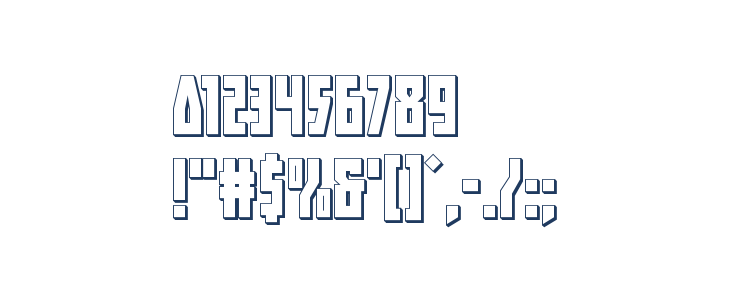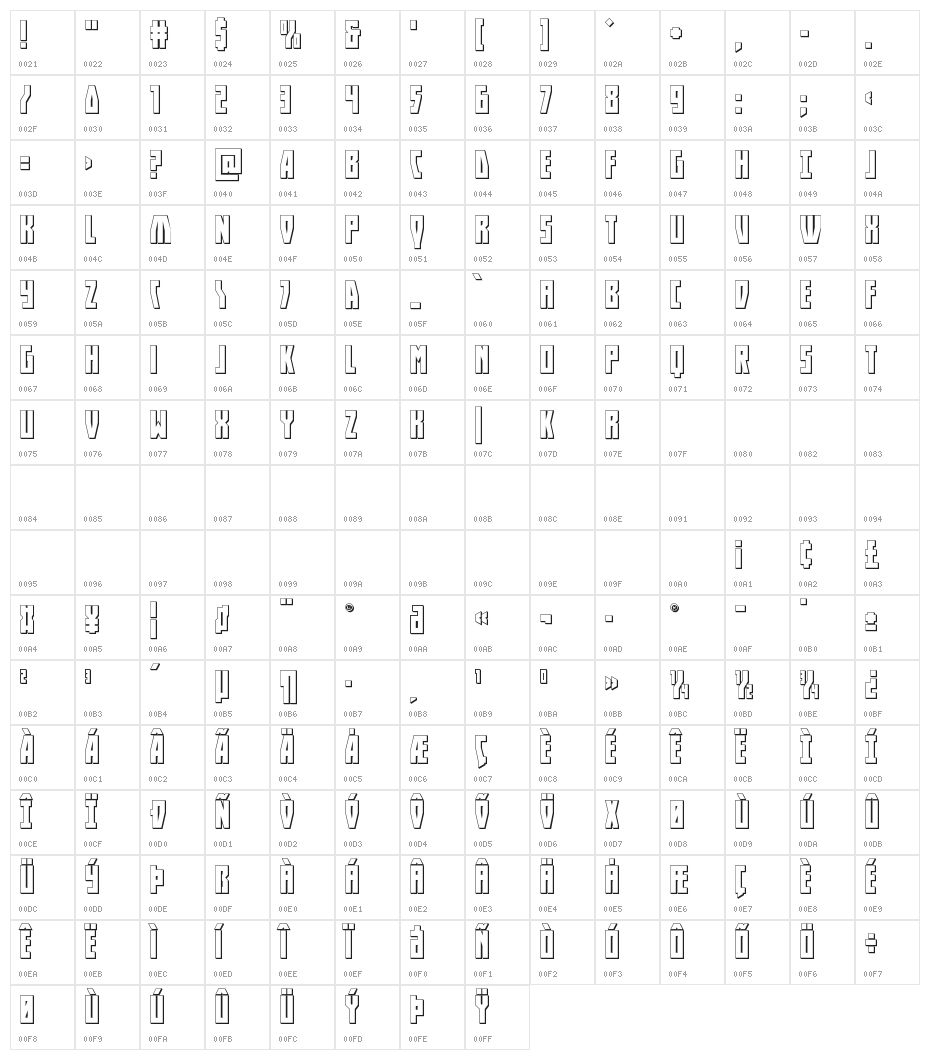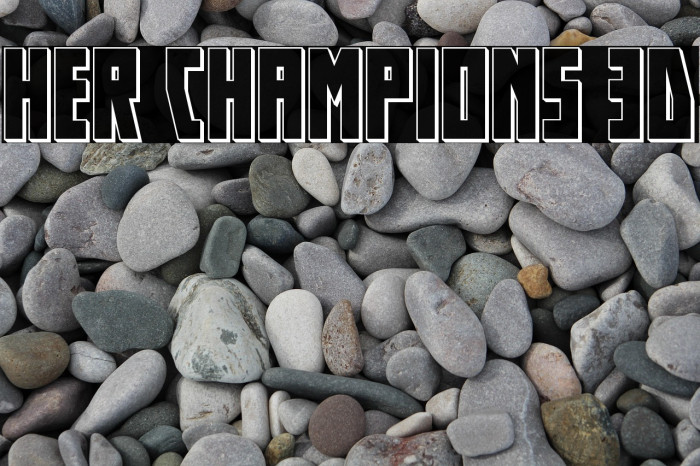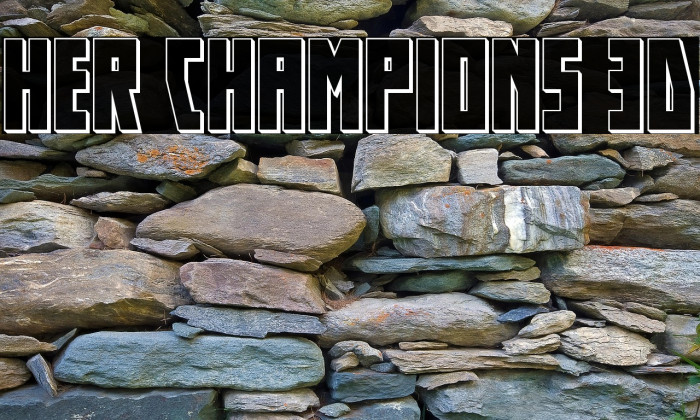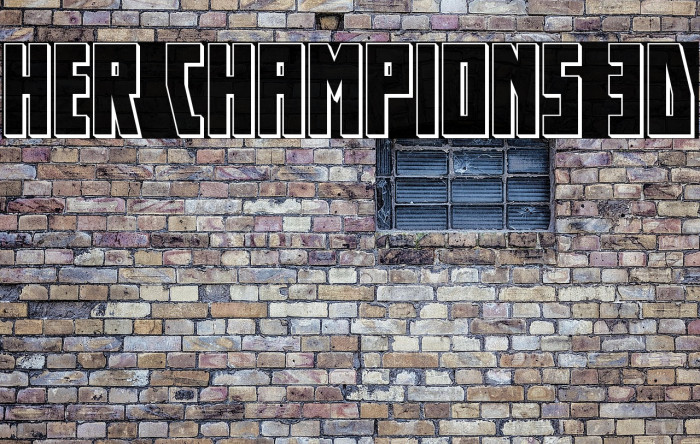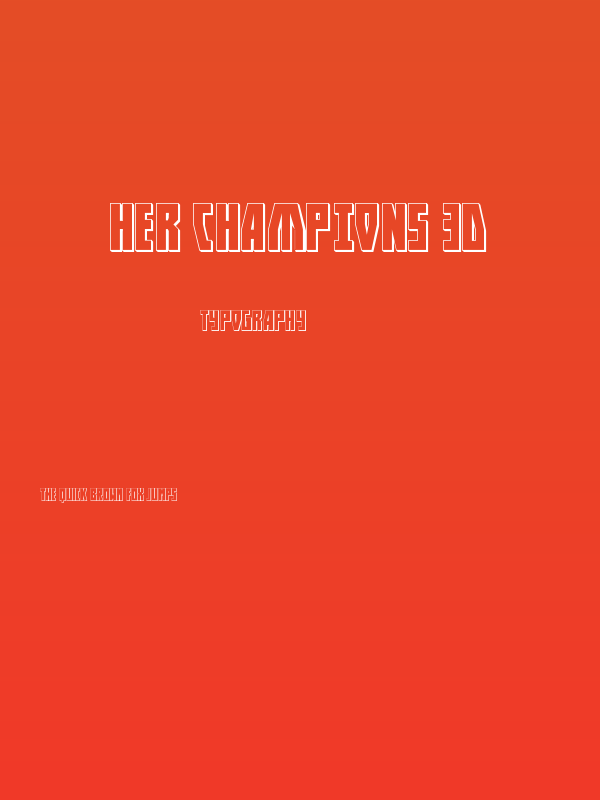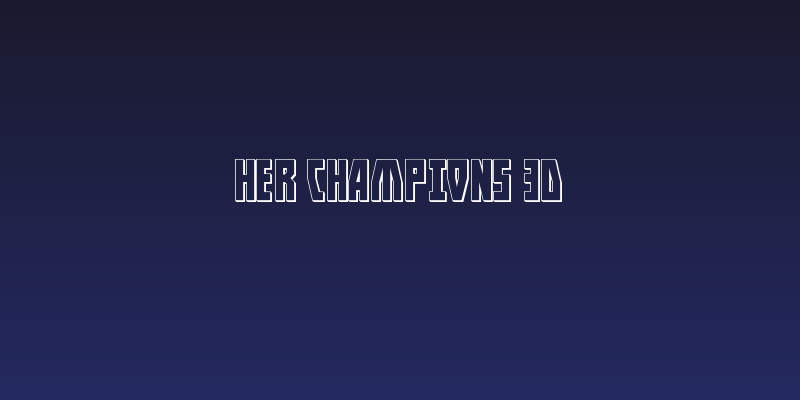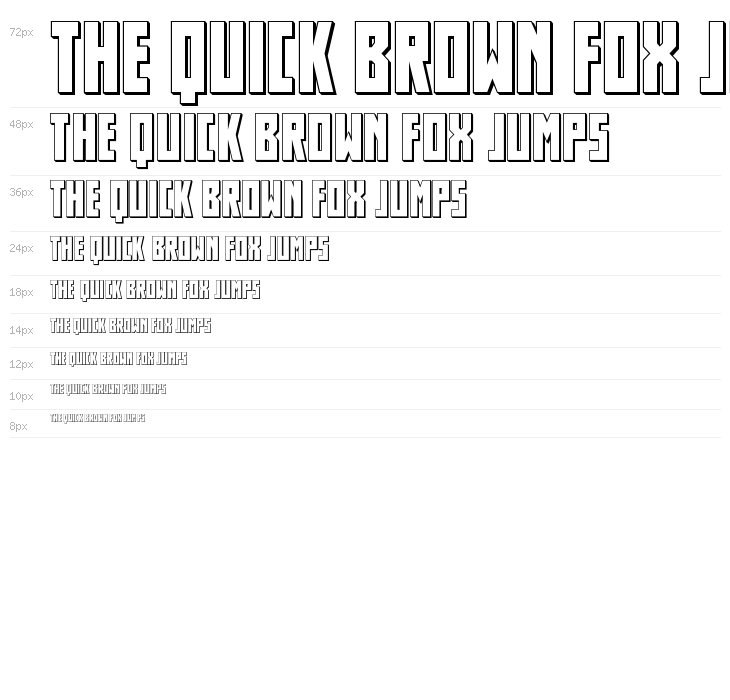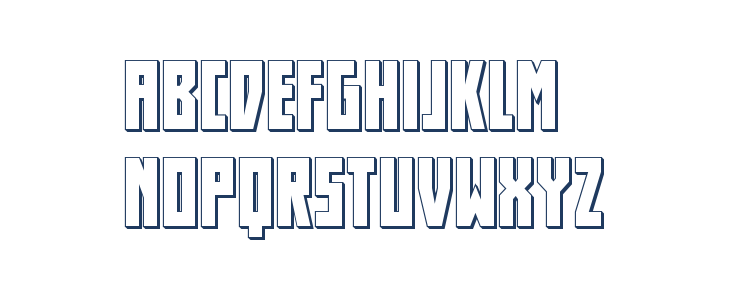
Her Champions 3D Font
Her Champions 3D Description
This font features a bold, geometric design with a three-dimensional effect that gives it a striking and modern appearance. The characters are constructed with sharp angles and clean lines, creating a sense of depth and structure. Each letter is outlined, enhancing the 3D illusion and making the font stand out on any background. The uppercase letters are particularly prominent, with a consistent height and width that contribute to a uniform look. The numbers and special characters maintain the same bold style, ensuring cohesion across all elements. This font is ideal for projects that require a strong visual impact and a contemporary feel.